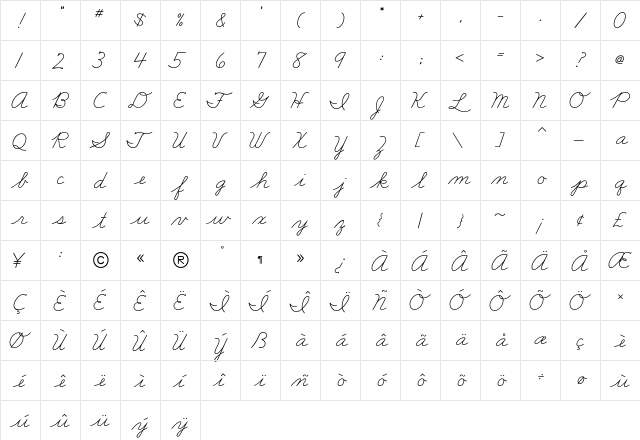
ZBConnect Regular
| Foundry | vLetter, Inc |
| Designer | vLetter, Inc. |
Design Context for ZBConnect Typeface
ZBConnect takes a measured approach to typography — its balanced proportions and neutral character make it a reliable workhorse for both digital and print work.